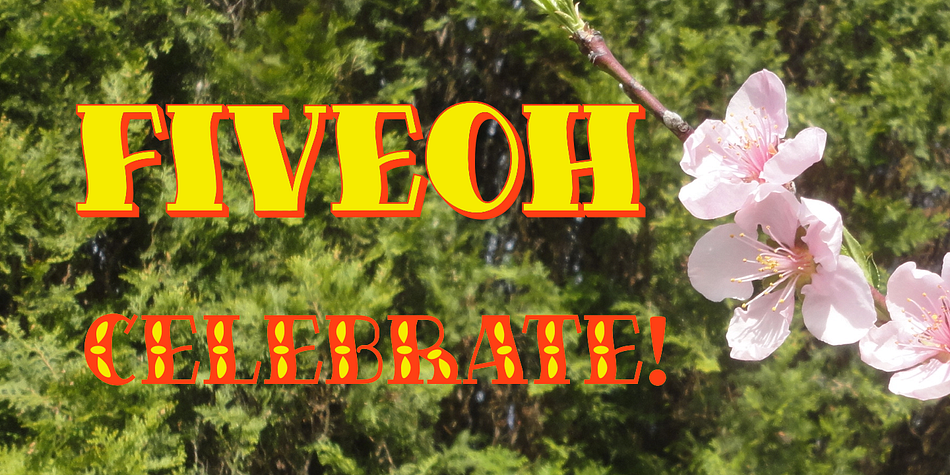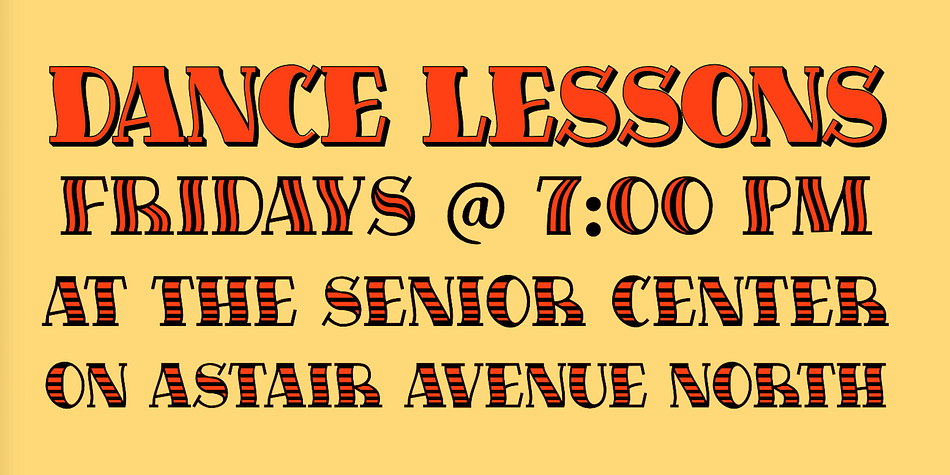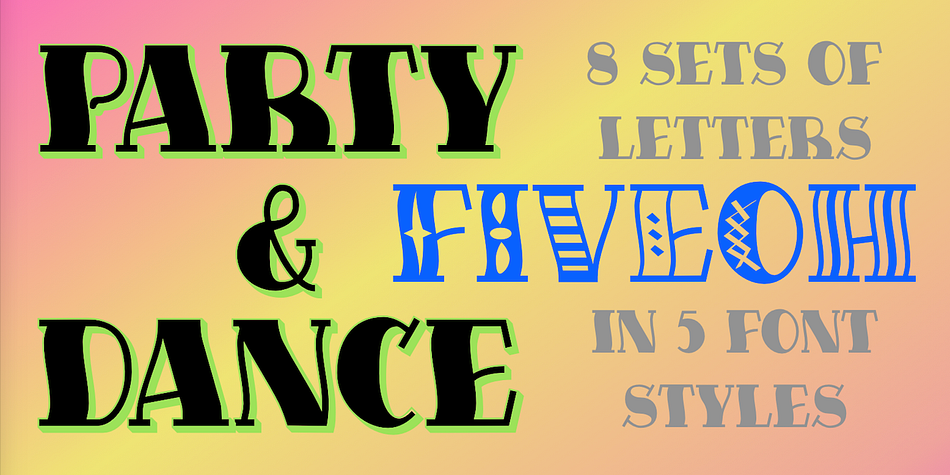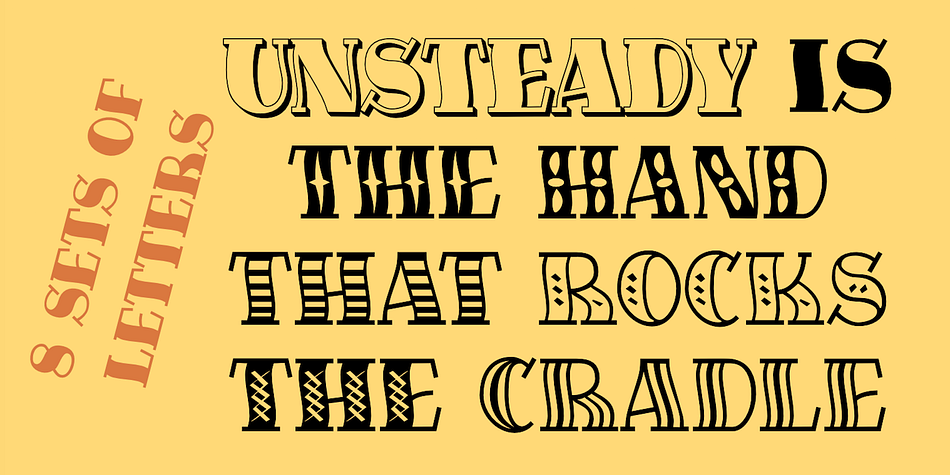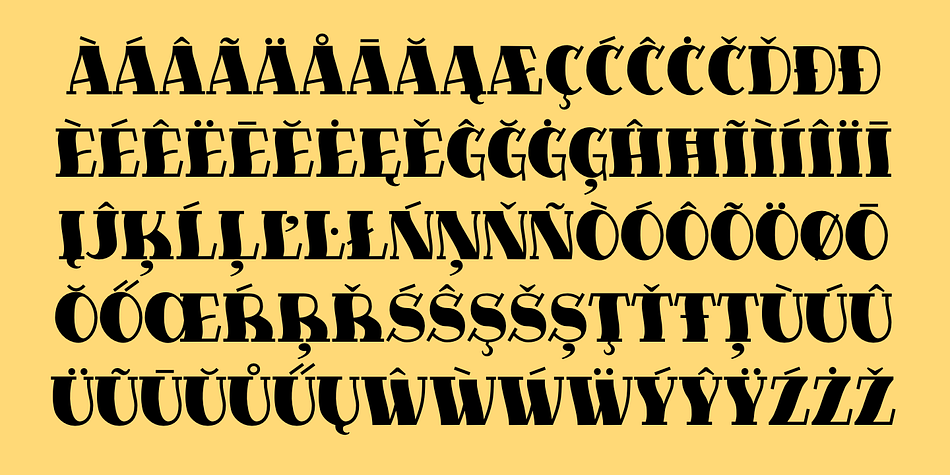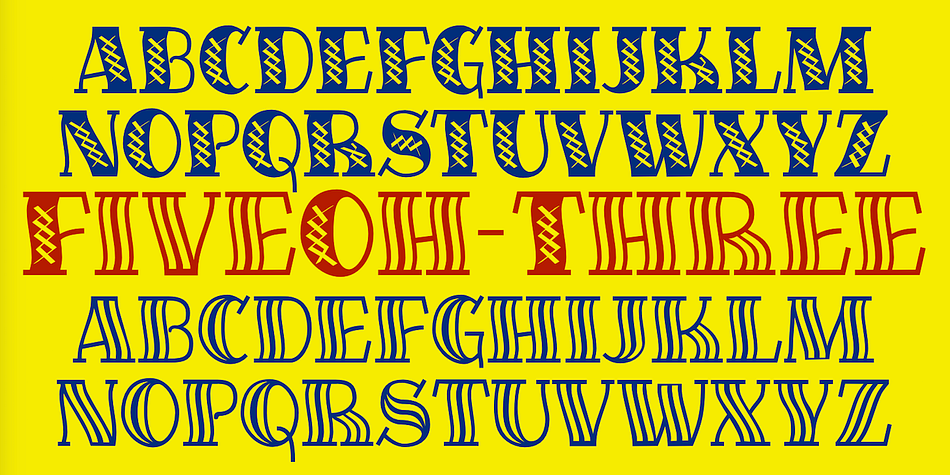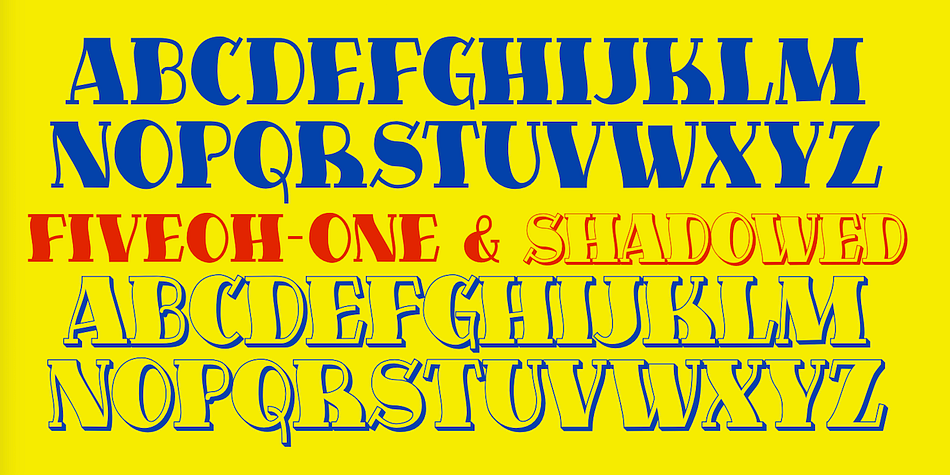
FiveOh is a hand display and western font family. This typeface has three styles and was published by Ingrimayne Type.
The FiveOh fonts are caps-only with extreme contrast between the thick and thin strokes. They have a carefree, wobbly look.
FiveOhOne contains the same set of letters on upper and lower case. FiveOhTwo and FiveOhThree contain different sets of letters with interior decorations on upper and lower cases. Thus there are five different sets of letters in the three typefaces.
The FiveOhTwo and FiveOhThree fonts can be layered on top of the FiveOhOne font to give letters with two colors.